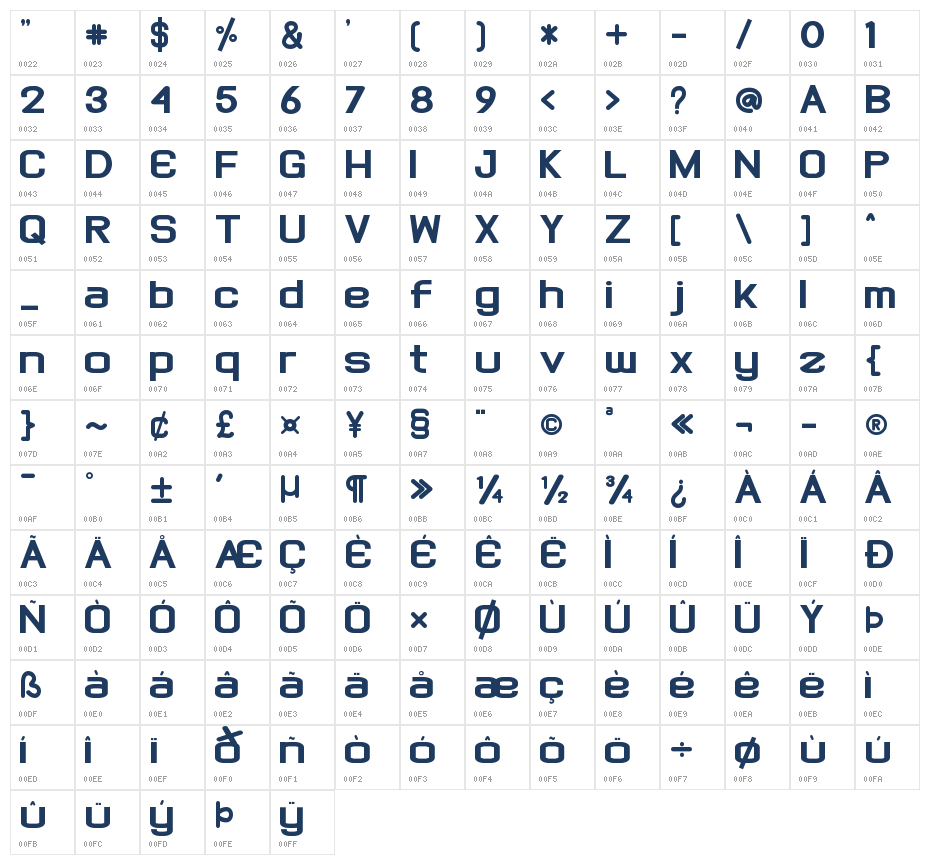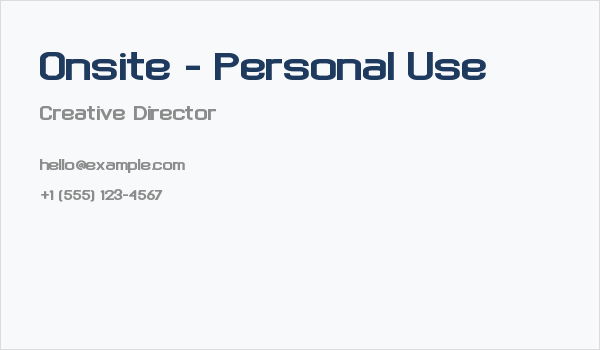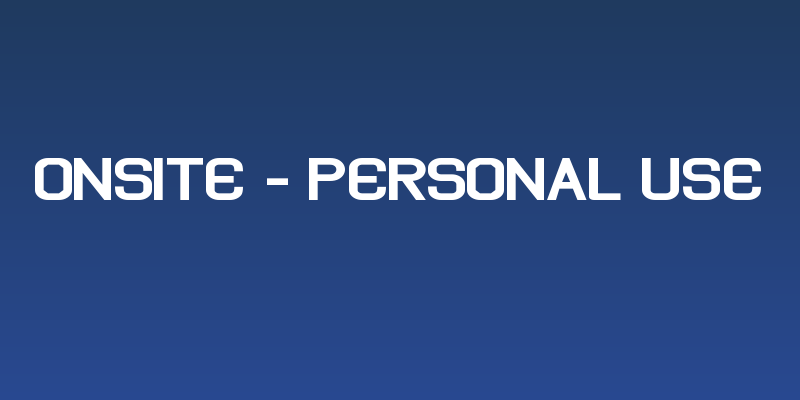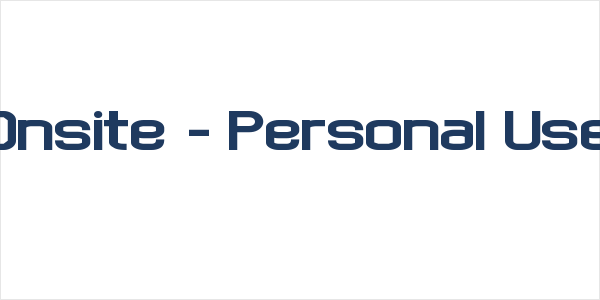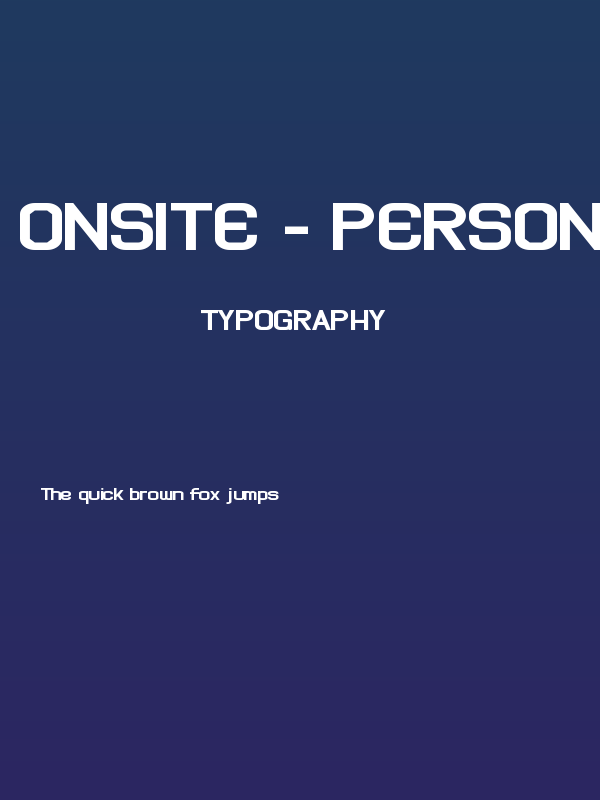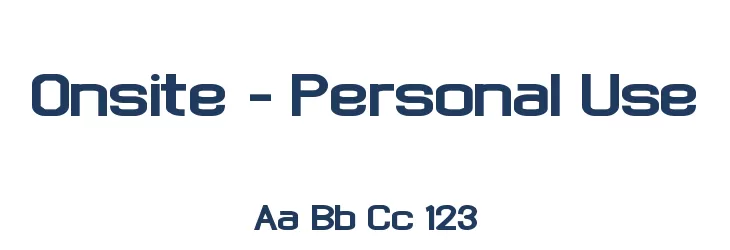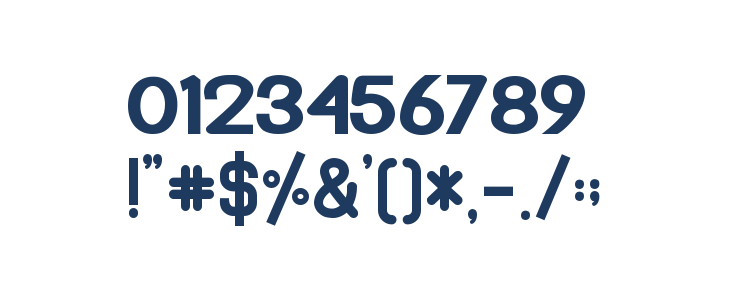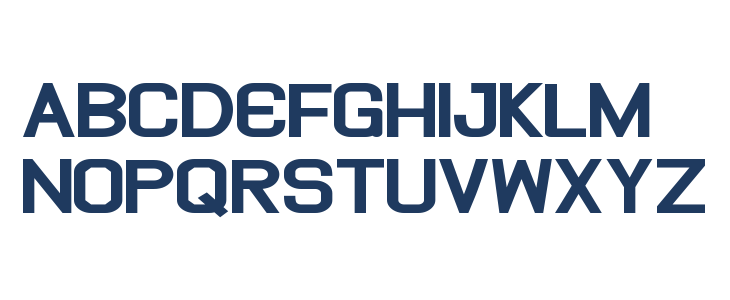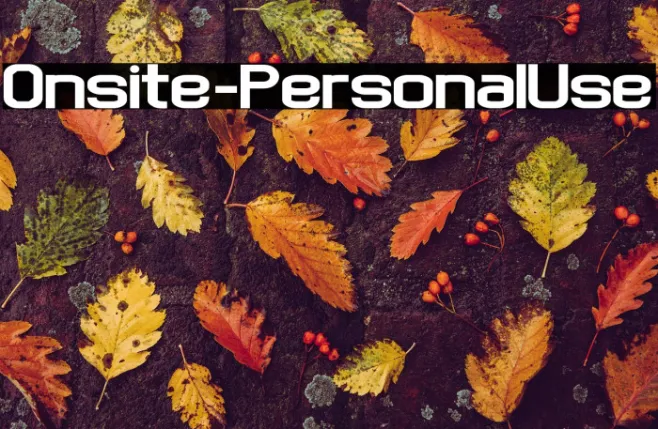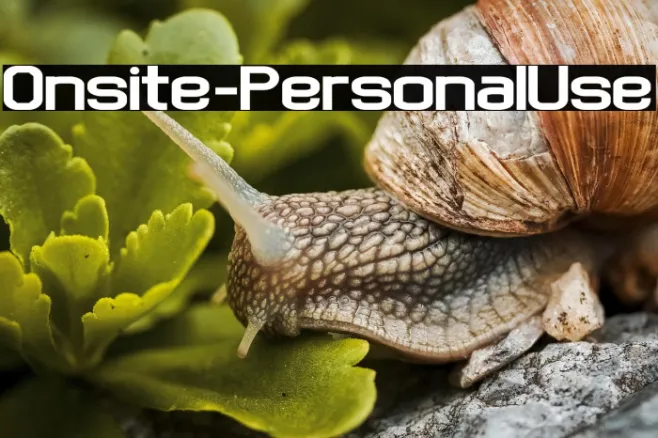
Onsite - Personal Use Font
Onsite - Personal Use Description
Bold, geometric sans-serif font with a modern and clean appearance, featuring uniform stroke widths and rounded edges.
| Overall Style | Modern, Geometric |